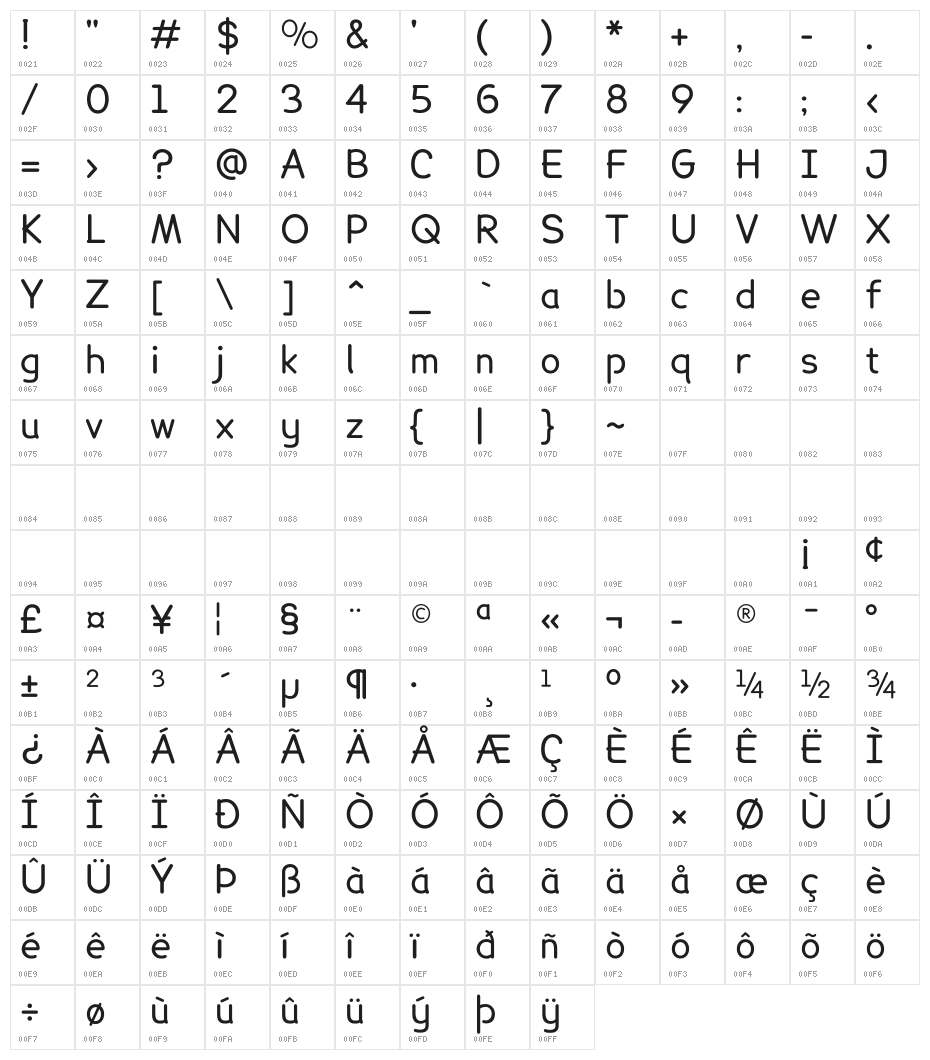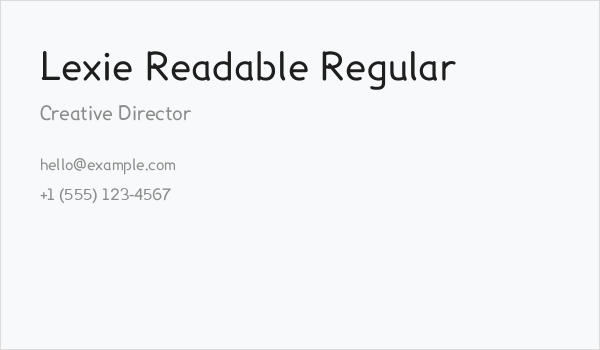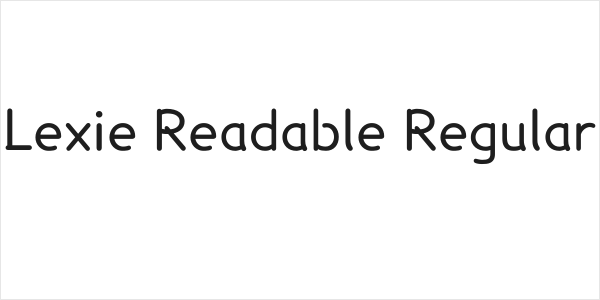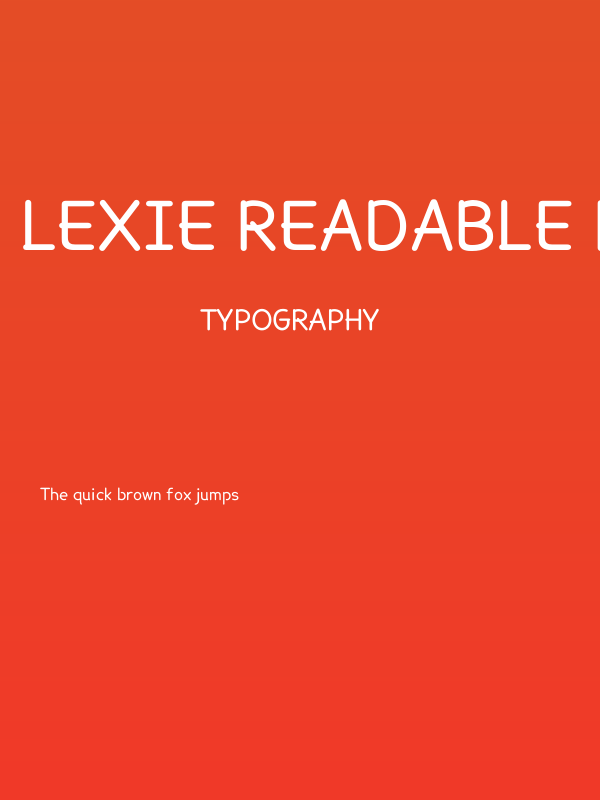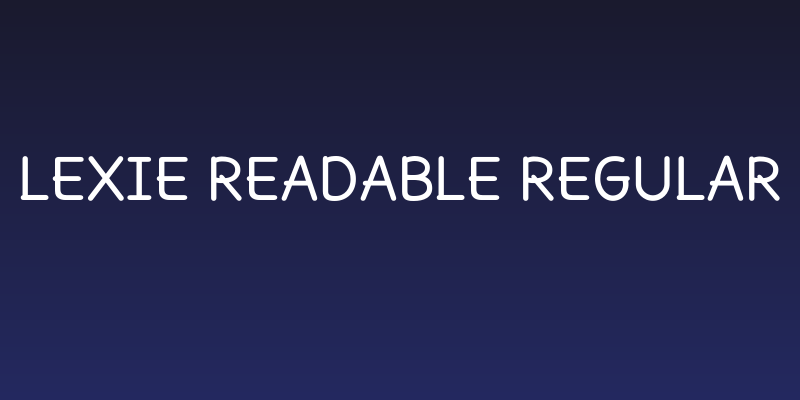
Lexie Readable Regular Font
| Anwendungsfall | Body text, User interfaces, Educational materials |
| Vorgeschlagene Projekte | Ideal for user interfaces, educational materials, children's books, and websites requiring high readability. |